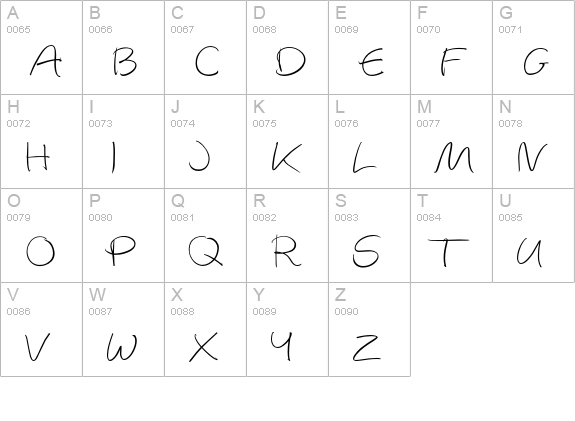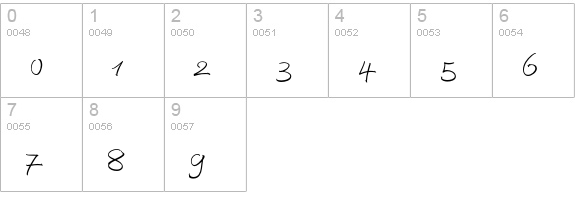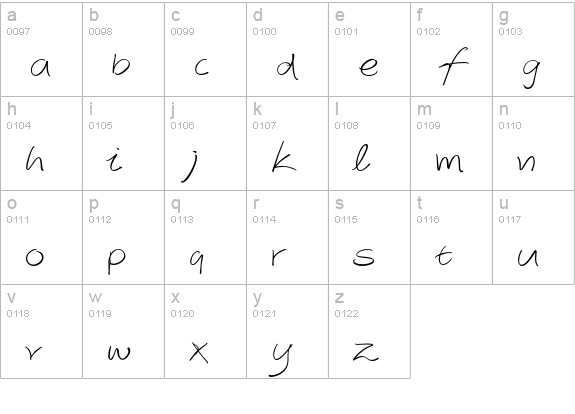
AutographScriptEF-LightAlt font is a beautifully crafted typeface that exudes elegance and sophistication. With its delicate curves and flowing lines, this font is perfect for adding a touch of charm to your designs. The light and airy feel of AutographScriptEF-LightAlt makes it a versatile choice for various projects, from wedding invitations to branding materials. The best part? AutographScriptEF-LightAlt is completely free to download at FontsMarket.com. Whether you're a designer looking to add a unique flair to your work or simply someone who appreciates quality typography, this font is sure to impress. Don't miss out on the opportunity to enhance your projects with the beauty of AutographScriptEF-LightAlt. Download it now and let your creativity soar!